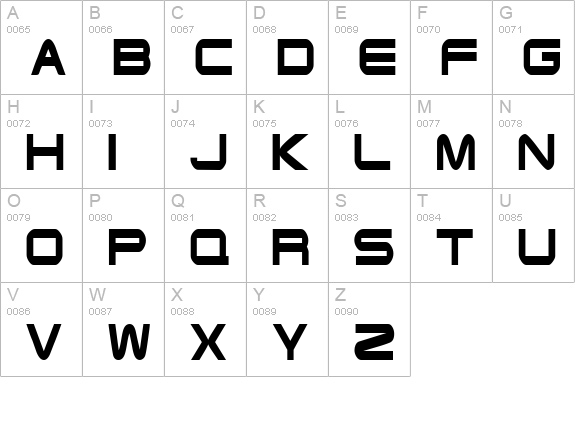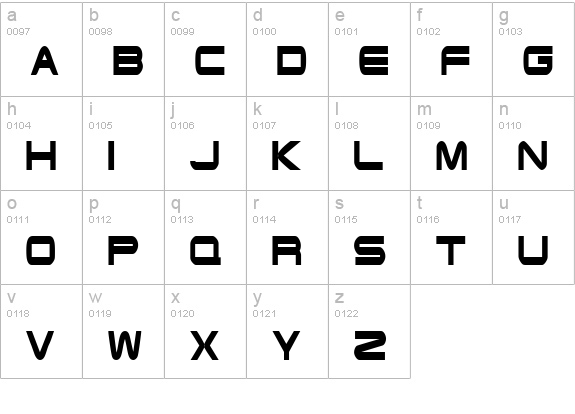
EndzoneCondensed Font Details
EndzoneCondensed is a sleek and modern display font that exudes sophistication and style. With its condensed letterforms and sharp edges, this font is perfect for adding a contemporary touch to any design project. Whether you're creating a logo, poster, or website, EndzoneCondensed will make your text stand out with its bold and impactful appearance. The best part is that EndzoneCondensed is available for free download at FontsMarket.com. You can easily access this font and elevate your designs without any cost. Don't miss out on this opportunity to enhance your projects with the dynamic energy of EndzoneCondensed. Download it now and let your creativity shine!